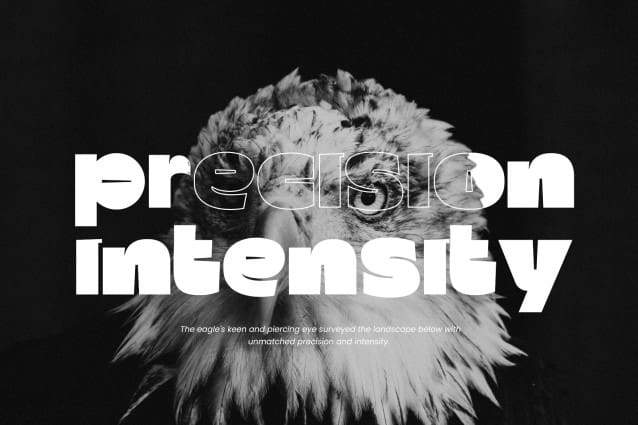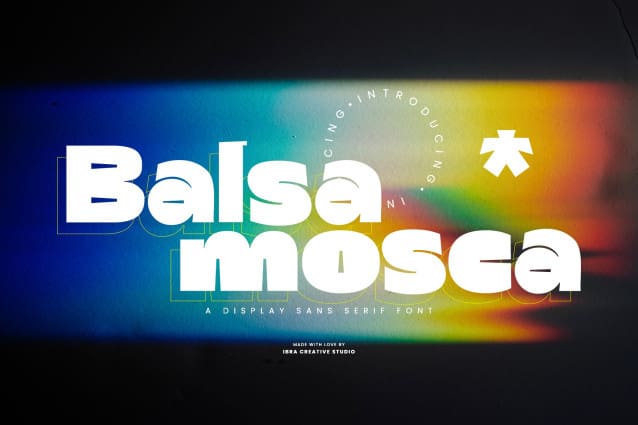
Balsamosca Font
Balsamosca Font is a captivating display sans-serif font that effortlessly commands attention and exudes modernity. Its clean, bold lines and geometric structure offer a sense of contemporary minimalism, while the well-balanced proportions and carefully designed characters provide a sleek and professional appearance. Balsamosca’s distinctiveness lies in its sharp edges and angular forms, giving it an edgy and dynamic feel. This font stands as a testament to modern design aesthetics, making it a perfect choice for headlines, logos, and other eye-catching display applications where a touch of boldness and sophistication is required.